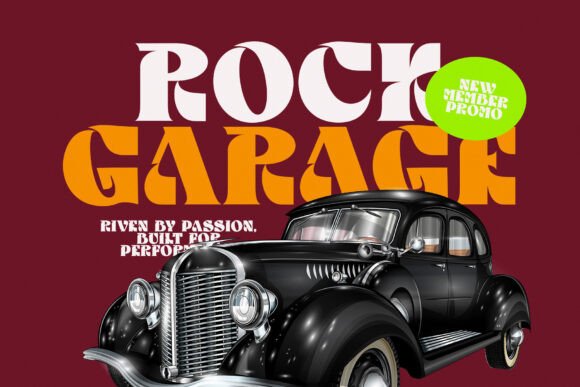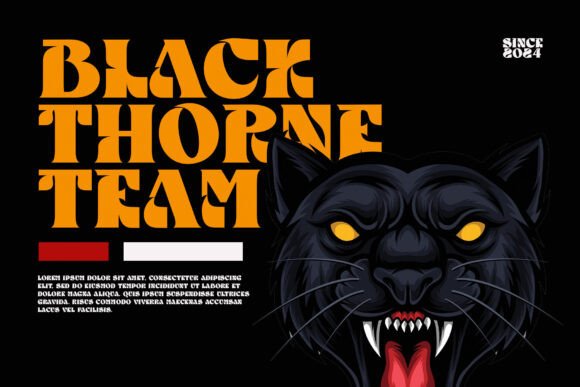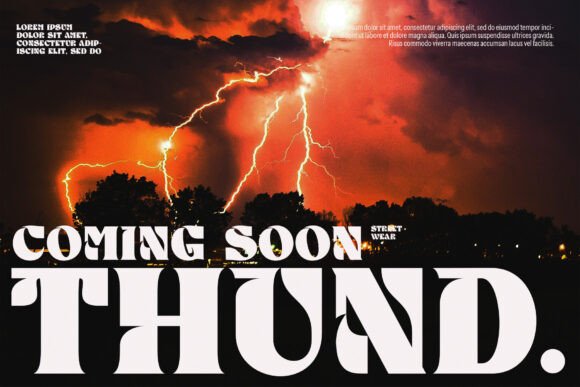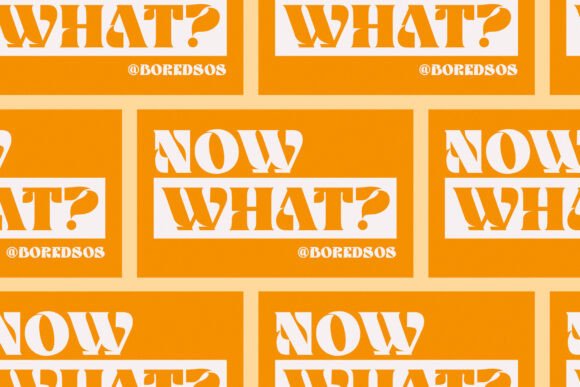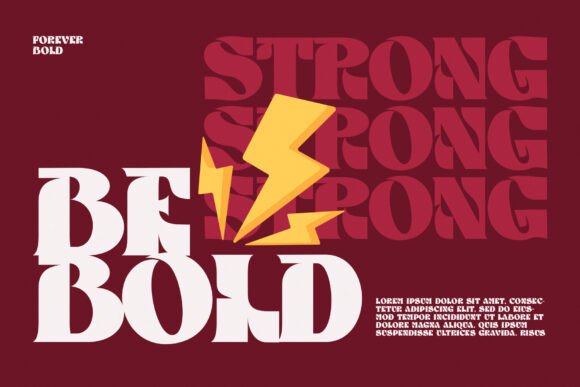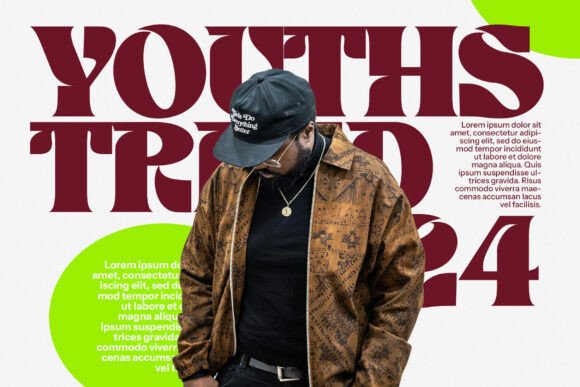
Introduction to Gacins Font
Have you ever stared at a blank design canvas, searching for the perfect font to bring your creative vision to life? As designers, we’ve all been there – pouring over font libraries, testing out different styles, and hoping to stumble upon that one special typeface that elevates our project to the next level. For many, that elusive font is the Gacins Font, a stunning display serif typeface that exudes vintage elegance and classic charm.
As a valuable design resource, the Gacins Font is a must-have for any creative project. Its unique blend of modern sophistication and timeless appeal makes it an ideal choice for logos, branding, websites, magazines, advertisements, and product packaging. With its high-quality design and transparent background, this font is perfect for designers looking to add a touch of sophistication to their work.
Key Features of Gacins Font
- High-quality design: Gacins Font is a well-crafted, professional-looking font suitable for creative projects, such as graphic design, digital art, and publishing.
- Unique characteristics: The font features a unique blend of modern and vintage elements, making it an excellent choice for designers looking to add a touch of elegance and sophistication to their creative projects.
Honest Review: Gacins Font
- Unique and elegant design: The Gacins Font features a distinctive, modern look that sets it apart from more common fonts.
- High quality: The font is well-crafted and smooth, making it perfect for print or digital applications.
- Limited language support: Unfortunately, the Gacins Font only supports a limited number of languages, which may be a drawback for international design projects.
Overall, I’m impressed with the Gacins Font’s unique design and high quality. While it may have some limitations, I think it’s a great resource for designers working on creative projects that require a modern, elegant look.
How to Use Gacins Font
Tips for Getting the Most Out of Gacins Font
To get the most out of Gacins Font, use it with a transparent background to create a seamless design. You can also experiment with different font sizes and colors to create a unique look.
Gacins Font is ideal for creative projects, such as logos, business cards, and brochures. It’s also great for presentations, reports, and documents that require a high-quality font.